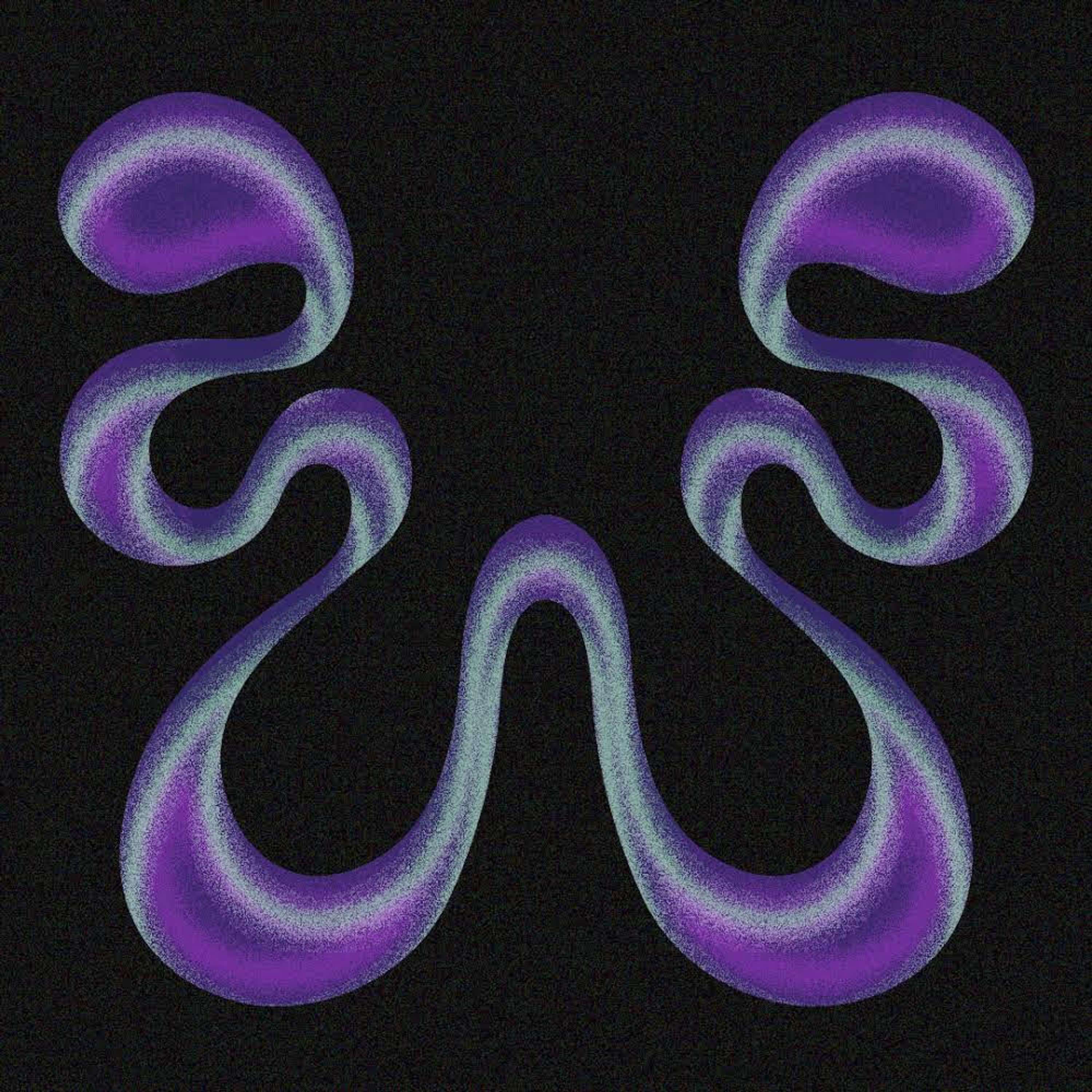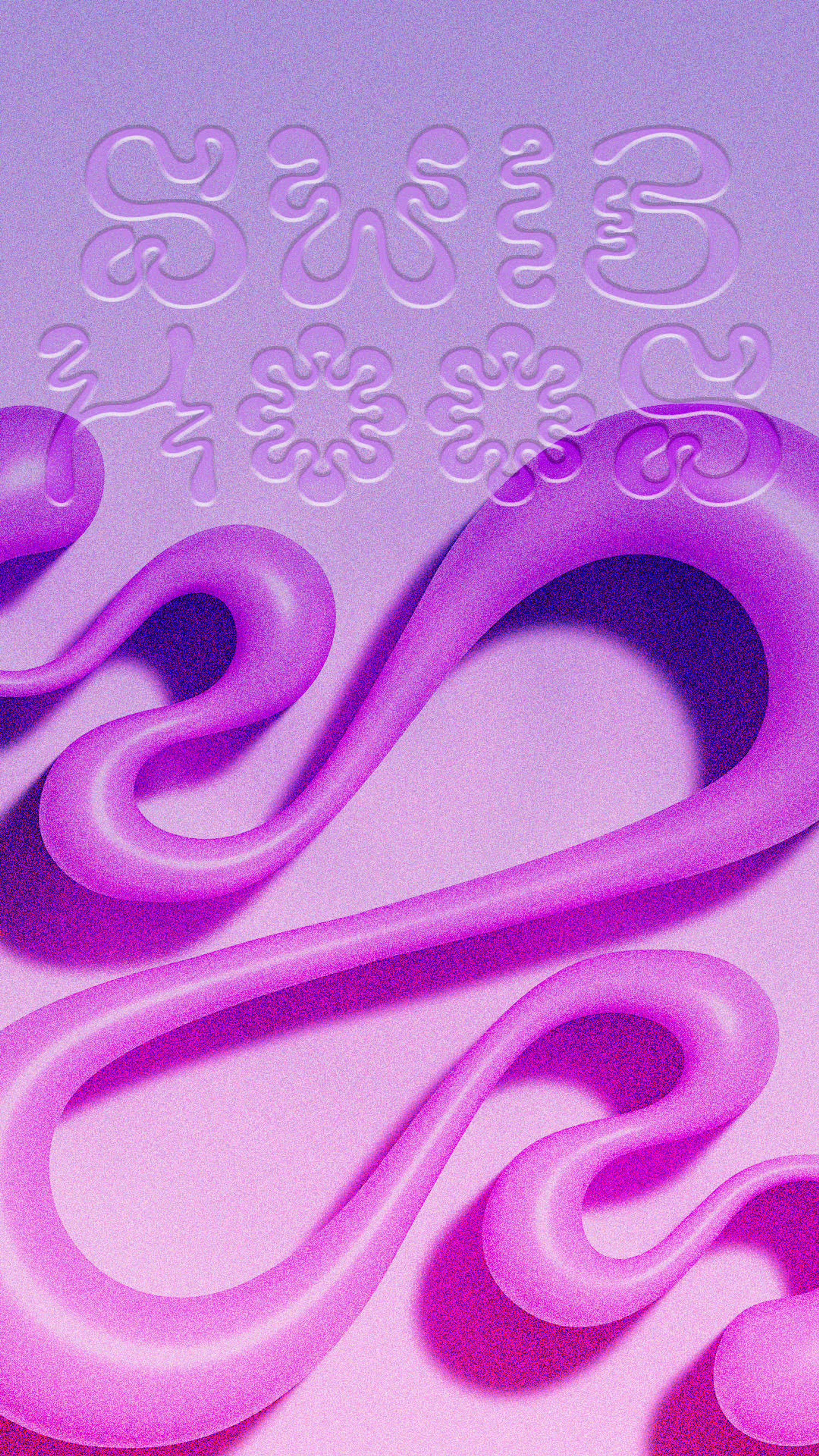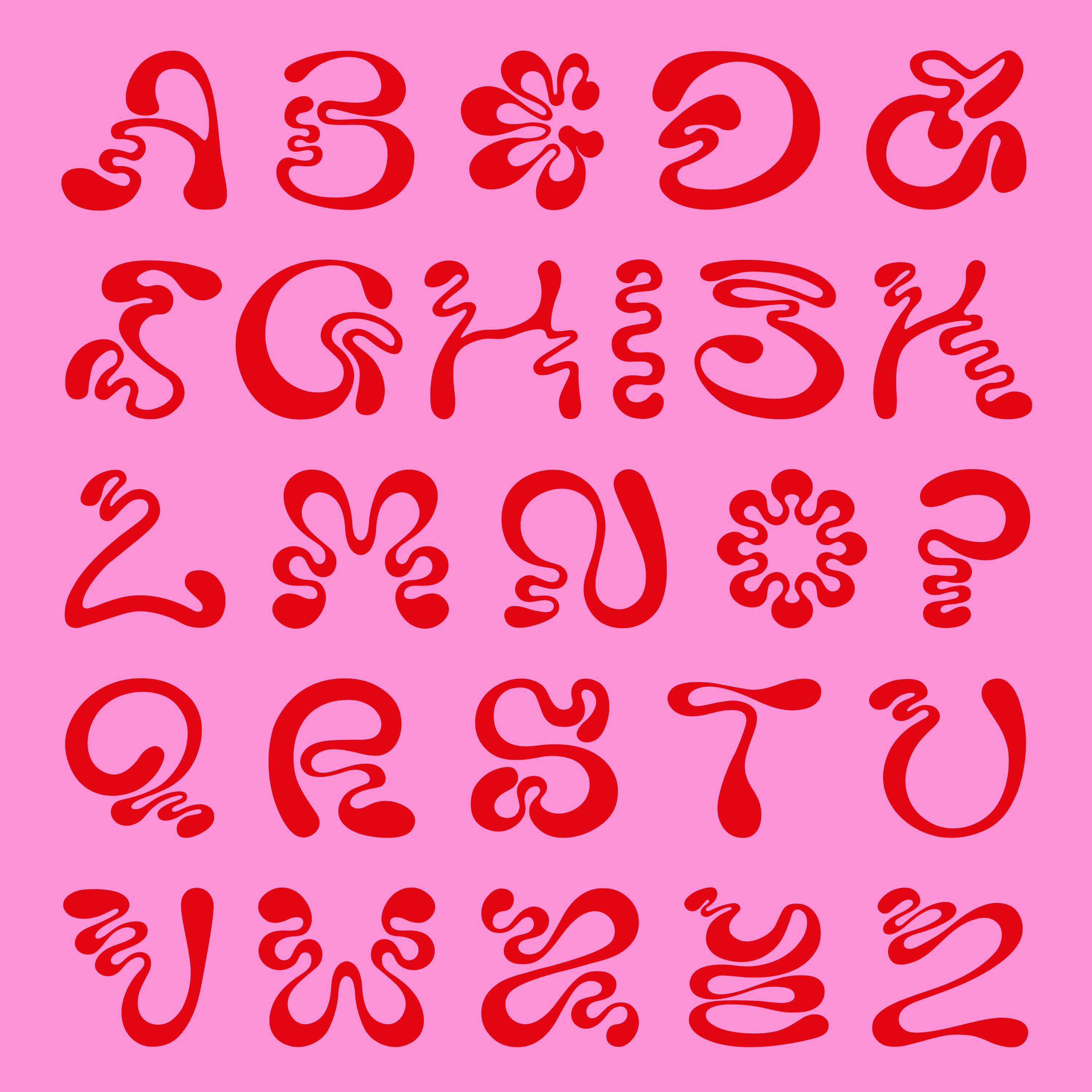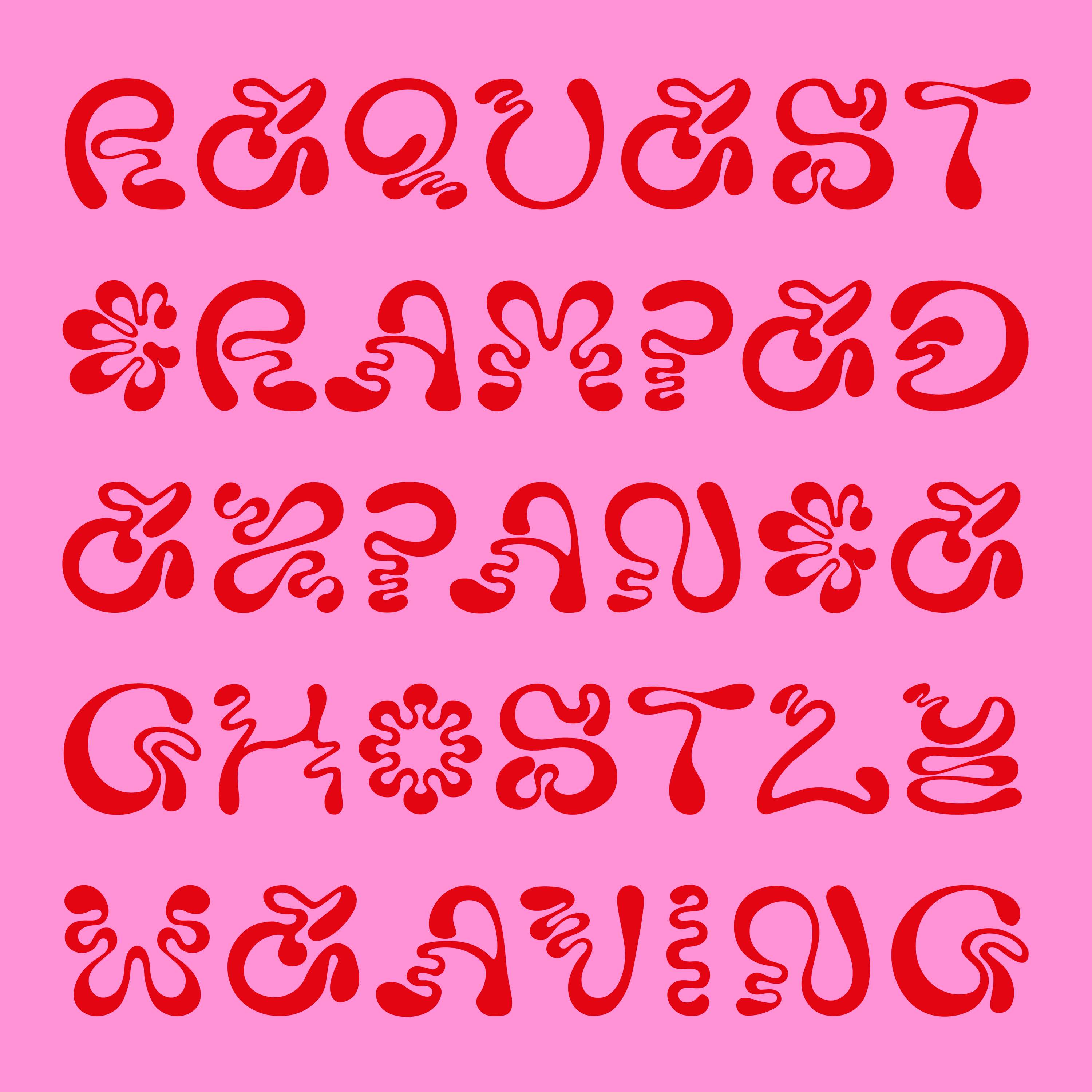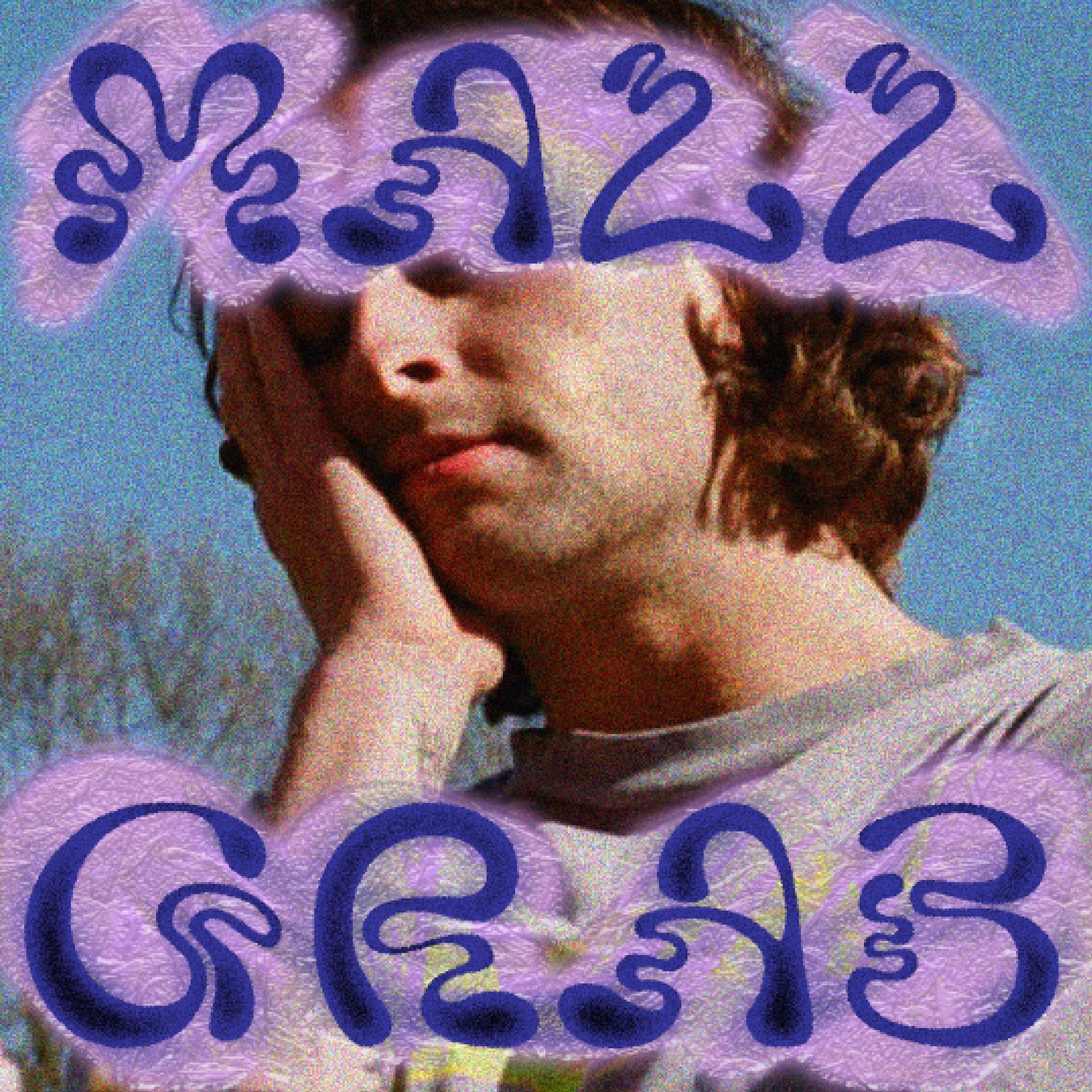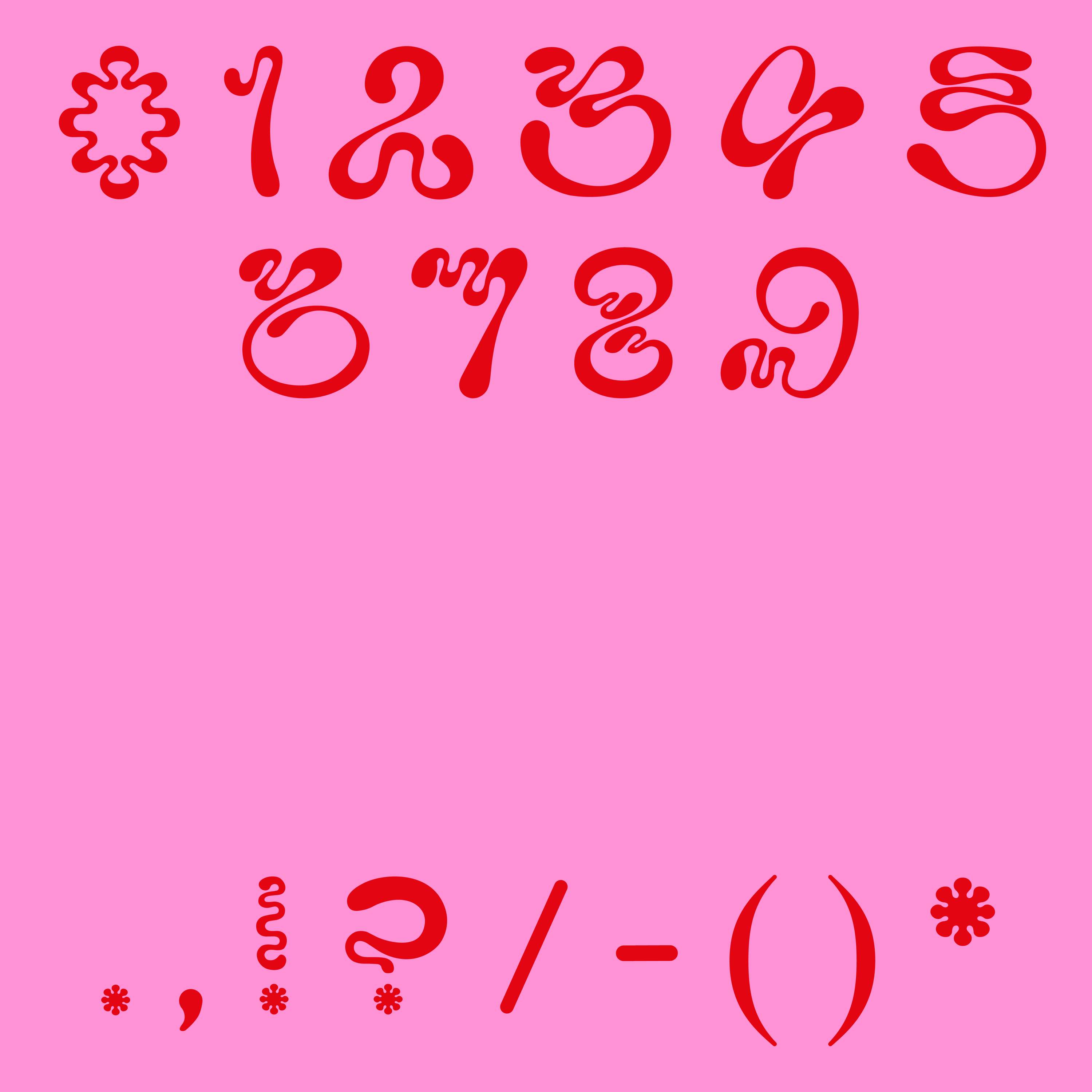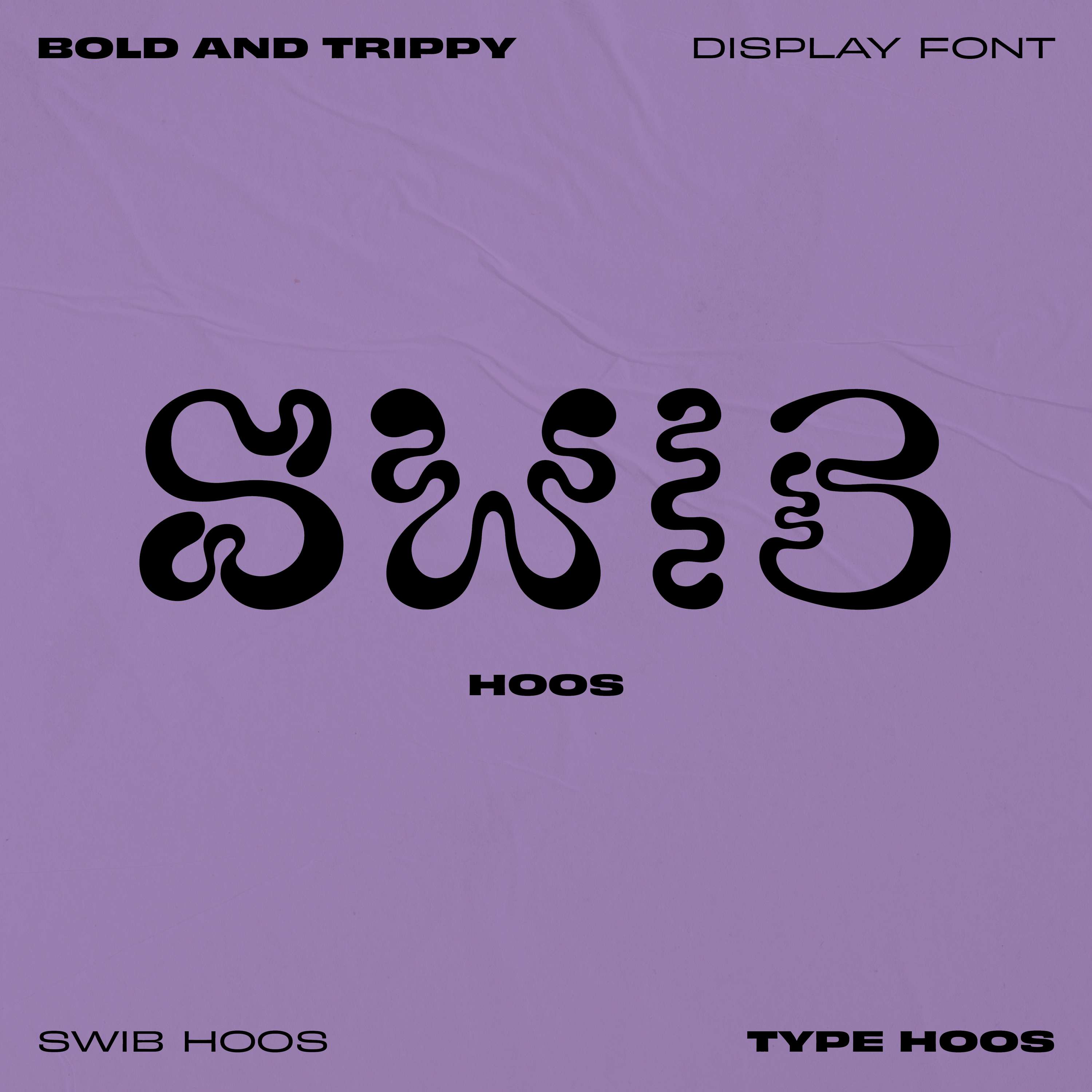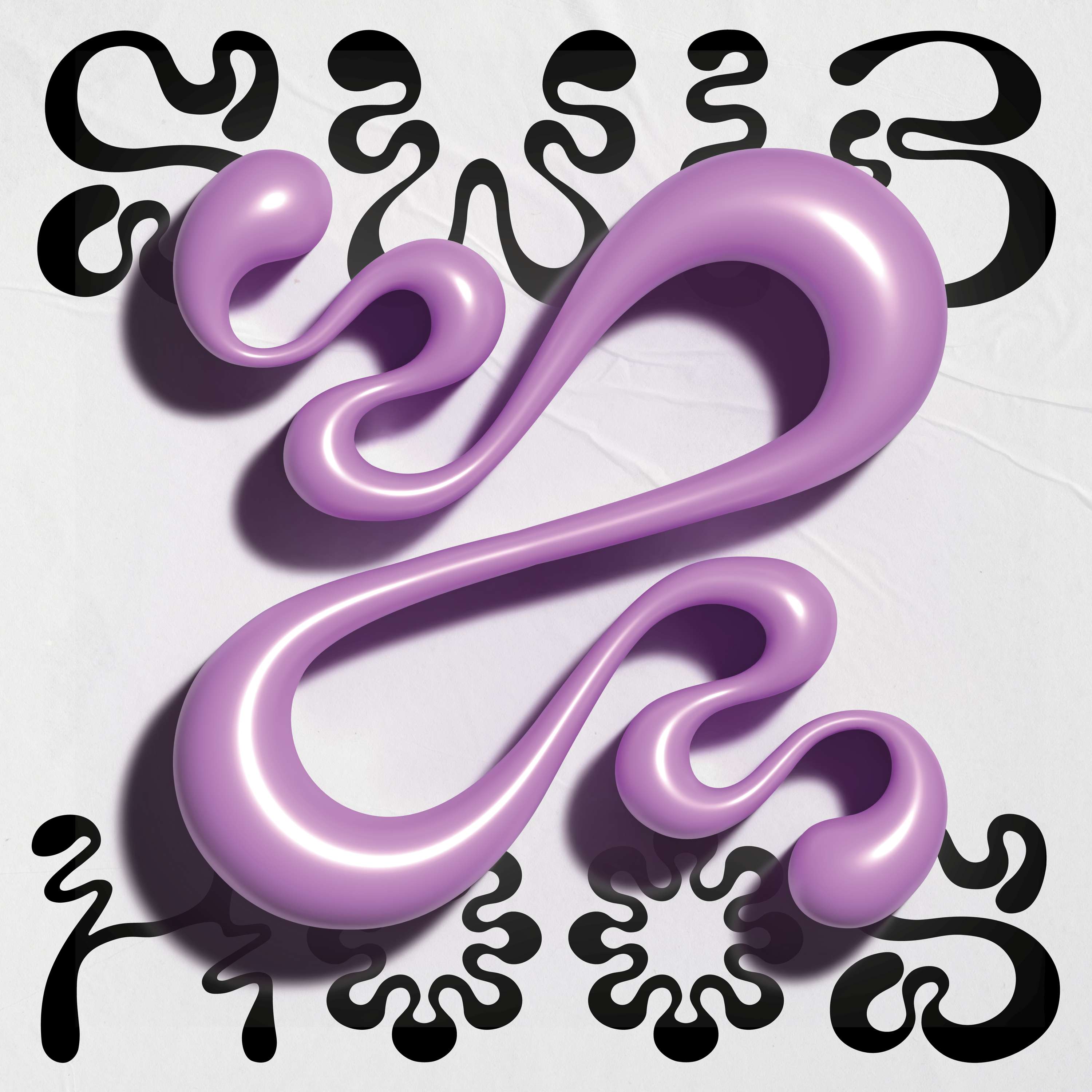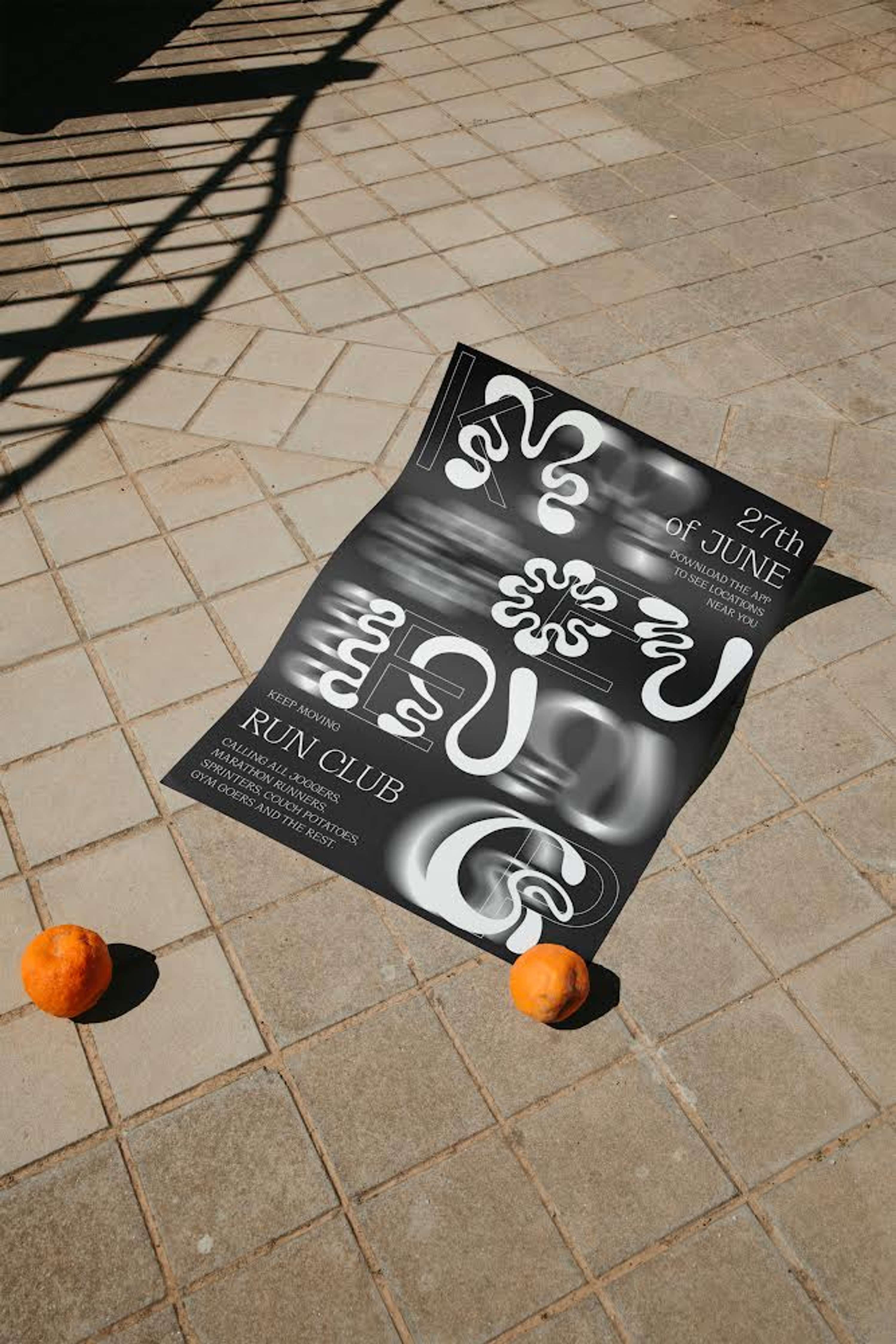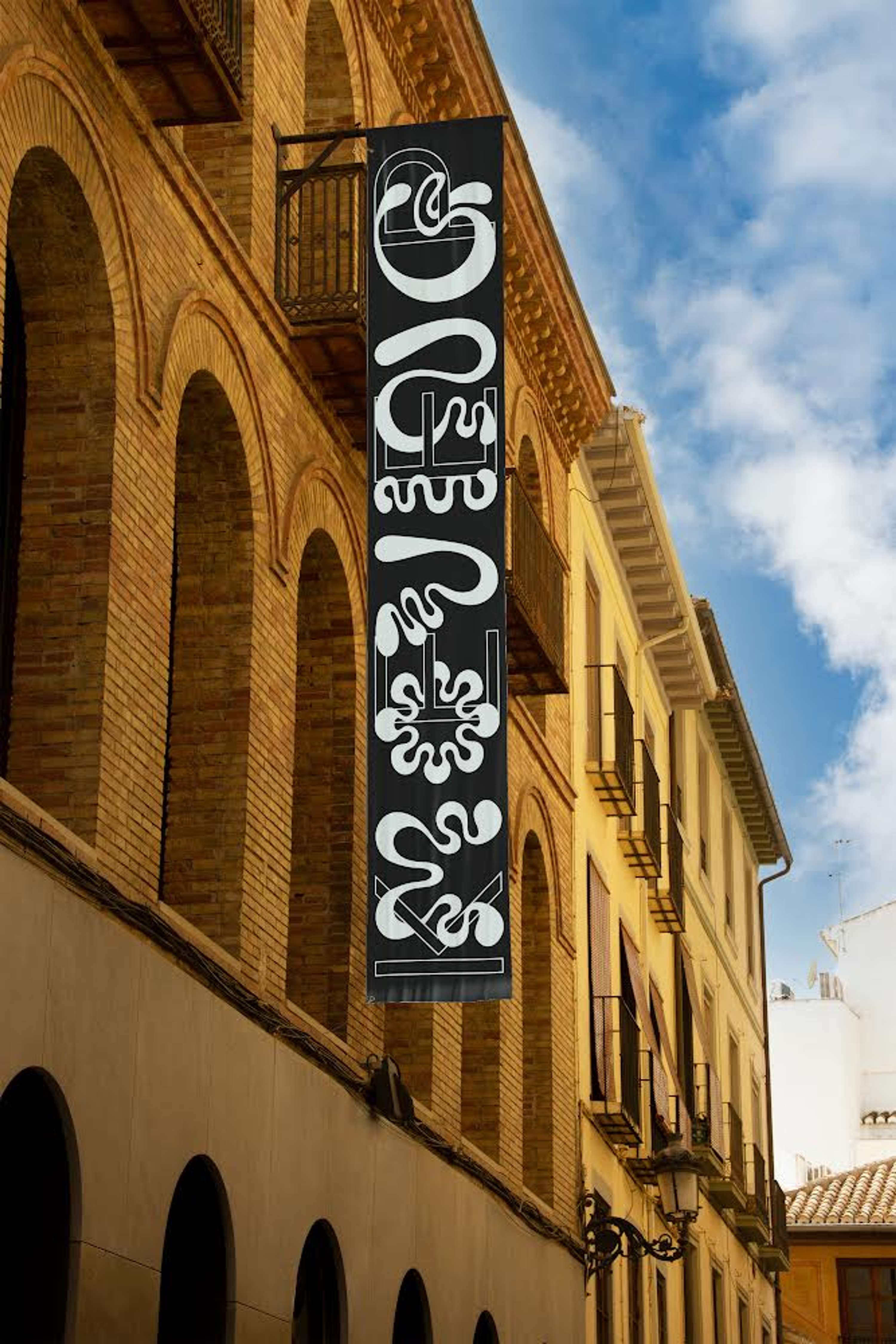
Type Hoos - Swib Hoos Font
A hand-drawn display font, created over the course of the 36 Days of Type challenge. Pushing the boundaries of legibility, most letters were drawn as a continuous line. This encouraged creativity and experimentation in the process. You can download it from Creative Market or my Gumroad below. https://lnkd.in/e2JdCVVn https://lnkd.in/eXNT-8Na
Some experimental typography using Swib Hoos
A quick branding example using Swib Hoos - A run club app called "Keep Moving"